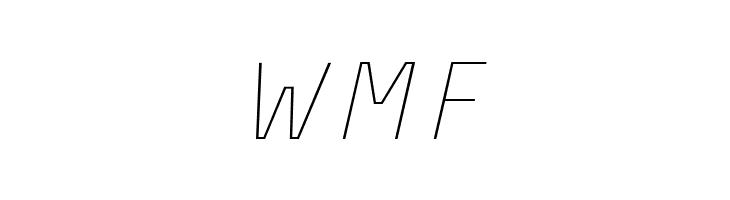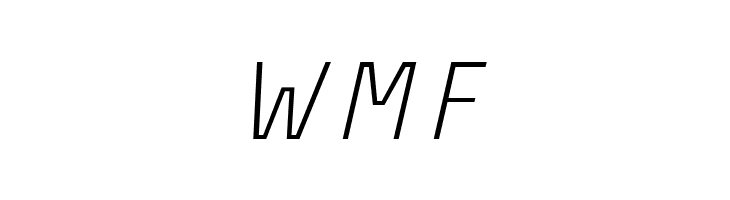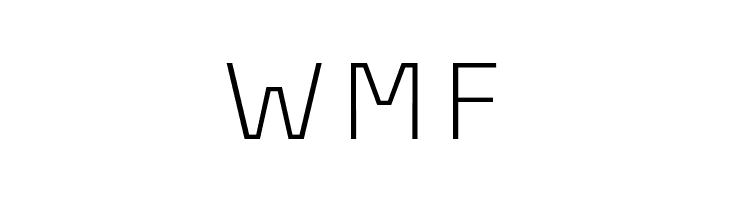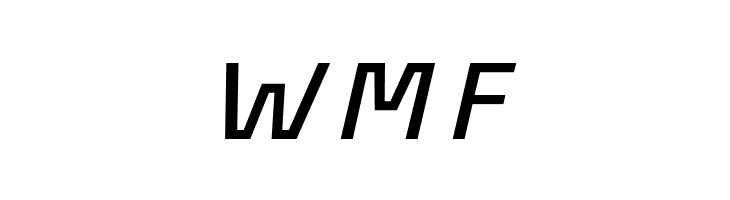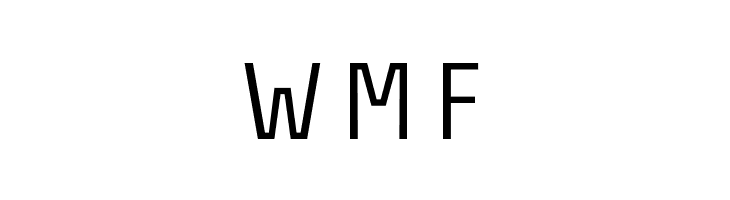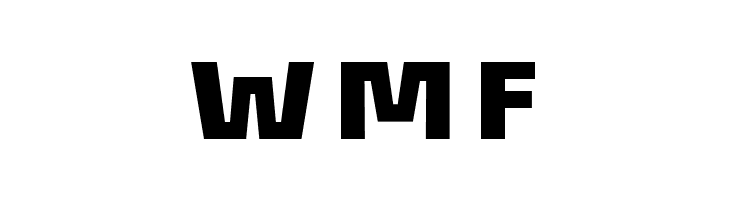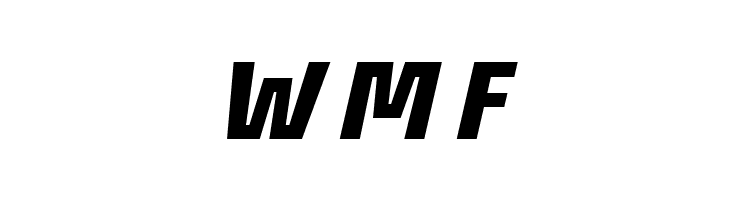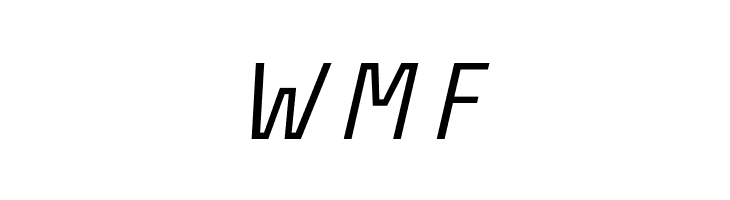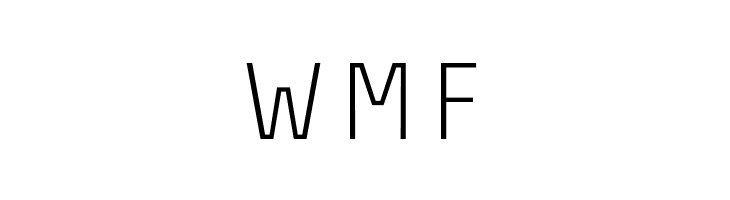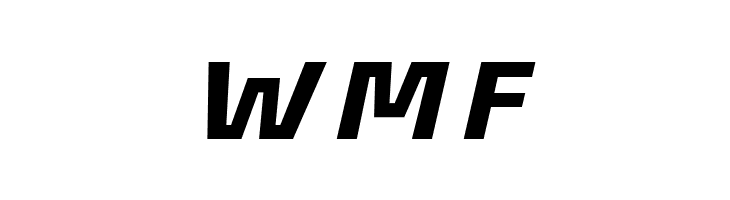
A bold, modern sans-serif font with a clean and professional appearance.
A thin, modern italic font with a sleek and elegant design.
A modern, light, italic sans-serif font with a sleek and elegant design.
A bold, modern sans-serif font with tight spacing and geometric precision.
A modern, light, and expanded sans-serif font with a clean and geometric design.
A modern, geometric sans-serif font with clean lines and uniform stroke width.
A thin, modern sans-serif font with a clean and elegant design.
A modern, italicized sans-serif font with expanded width and clean lines.
A modern, light, expanded sans-serif font with geometric styling.
A modern, thin, and italicized font with an expanded style and clean lines.
A bold, modern typeface with strong geometric forms and uniform stroke width.
A bold, expanded, and slightly italicized modern sans-serif font.
A sleek, thin, italic sans-serif font with a modern and elegant style.
A modern, italicized sans-serif font with a sleek and professional appearance.
A modern, clean sans-serif font with balanced spacing and uniform strokes.
A modern, italicized sans-serif font with expanded spacing and medium contrast.
A modern, bold, and italic sans-serif font with medium contrast and condensed width.
A bold, italic, and modern font with tight character spacing.
A modern, thin, expanded sans-serif font with a clean and geometric style.
A sleek, modern sans-serif font with a light weight and expanded width, featuring a subtle italic slant.
A modern, expanded sans-serif font with an italic style and clean lines.
A modern sans-serif font with clean lines and uniform stroke width, ideal for readability.
A bold, expanded typeface with geometric, uniform strokes for a modern look.
A bold, expanded sans-serif font with a modern and impactful style.
A bold, heavy italic font with a modern and dynamic style.
A modern, geometric sans-serif font with uniform stroke widths.
A bold, expanded, and italicized sans-serif font with high contrast.
A modern, light, italic sans-serif font with sleek lines and balanced spacing.